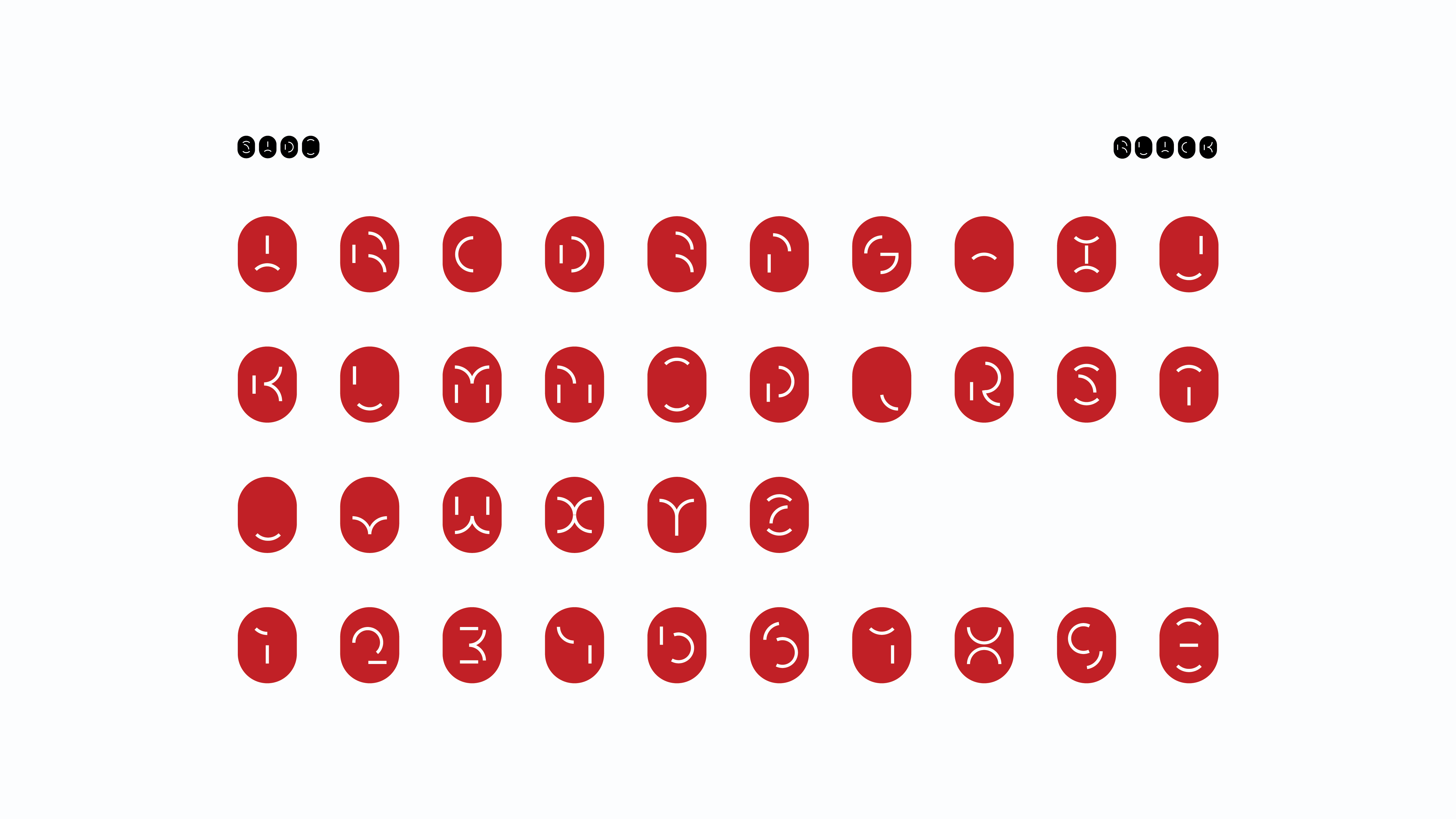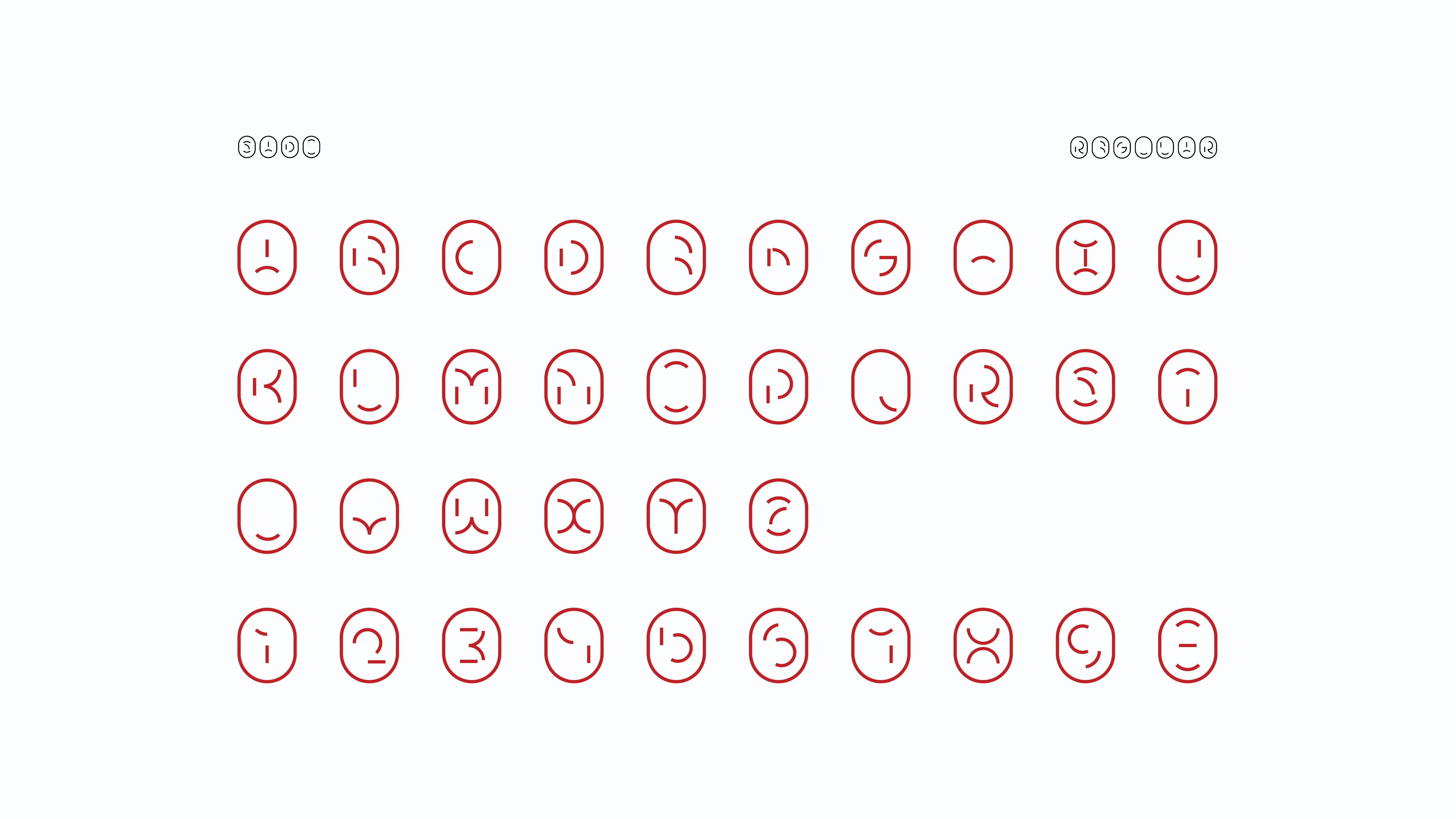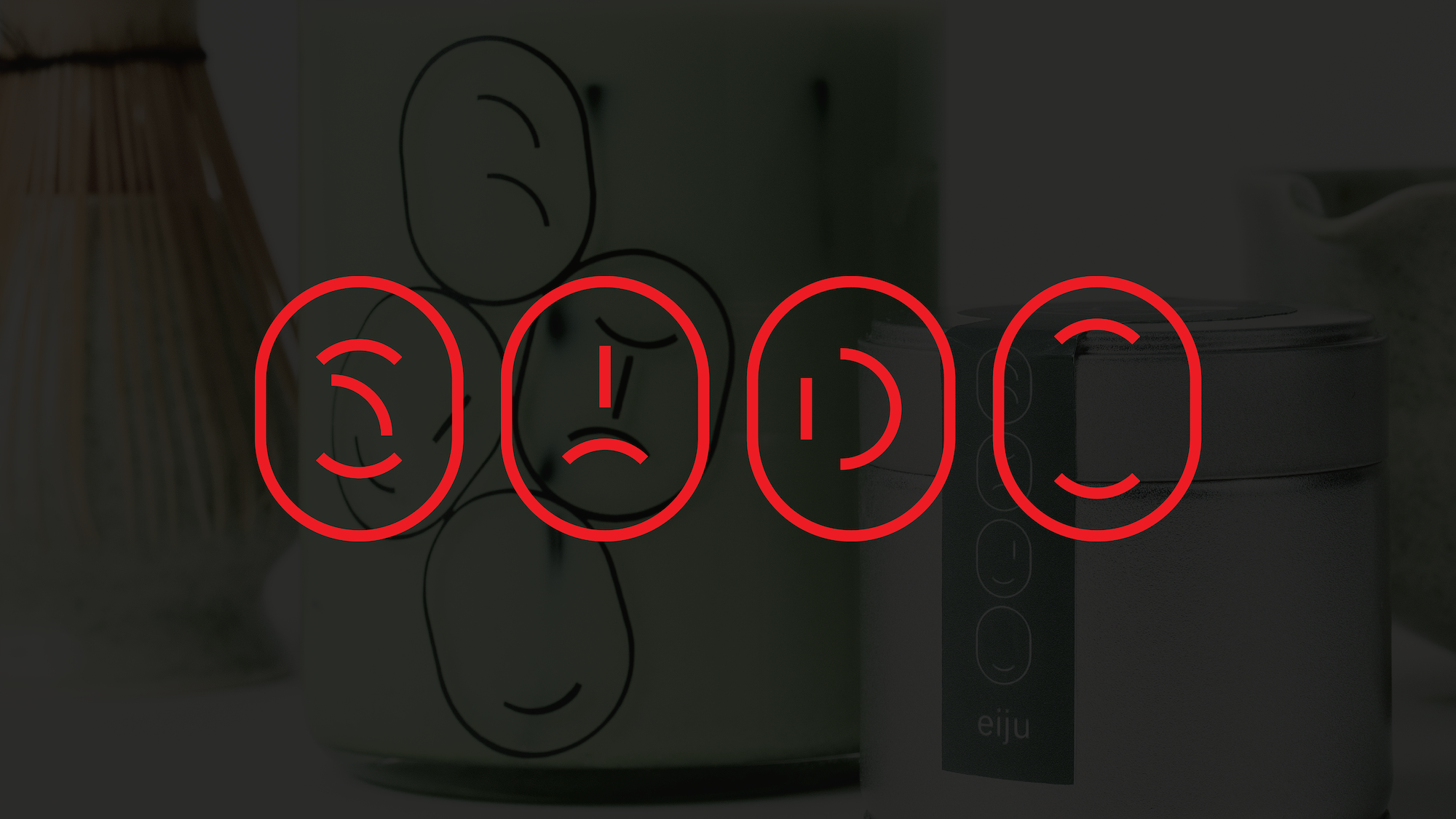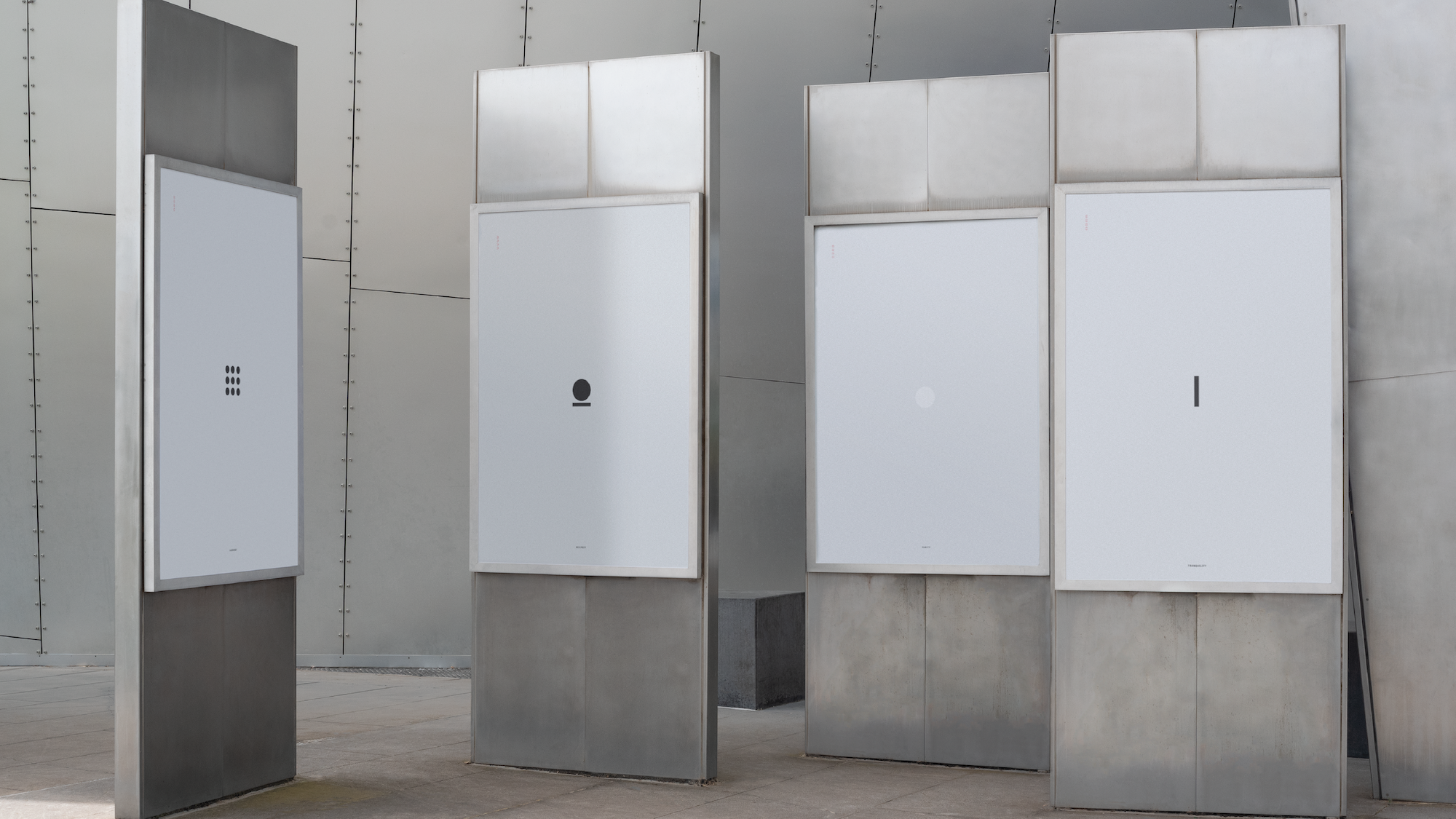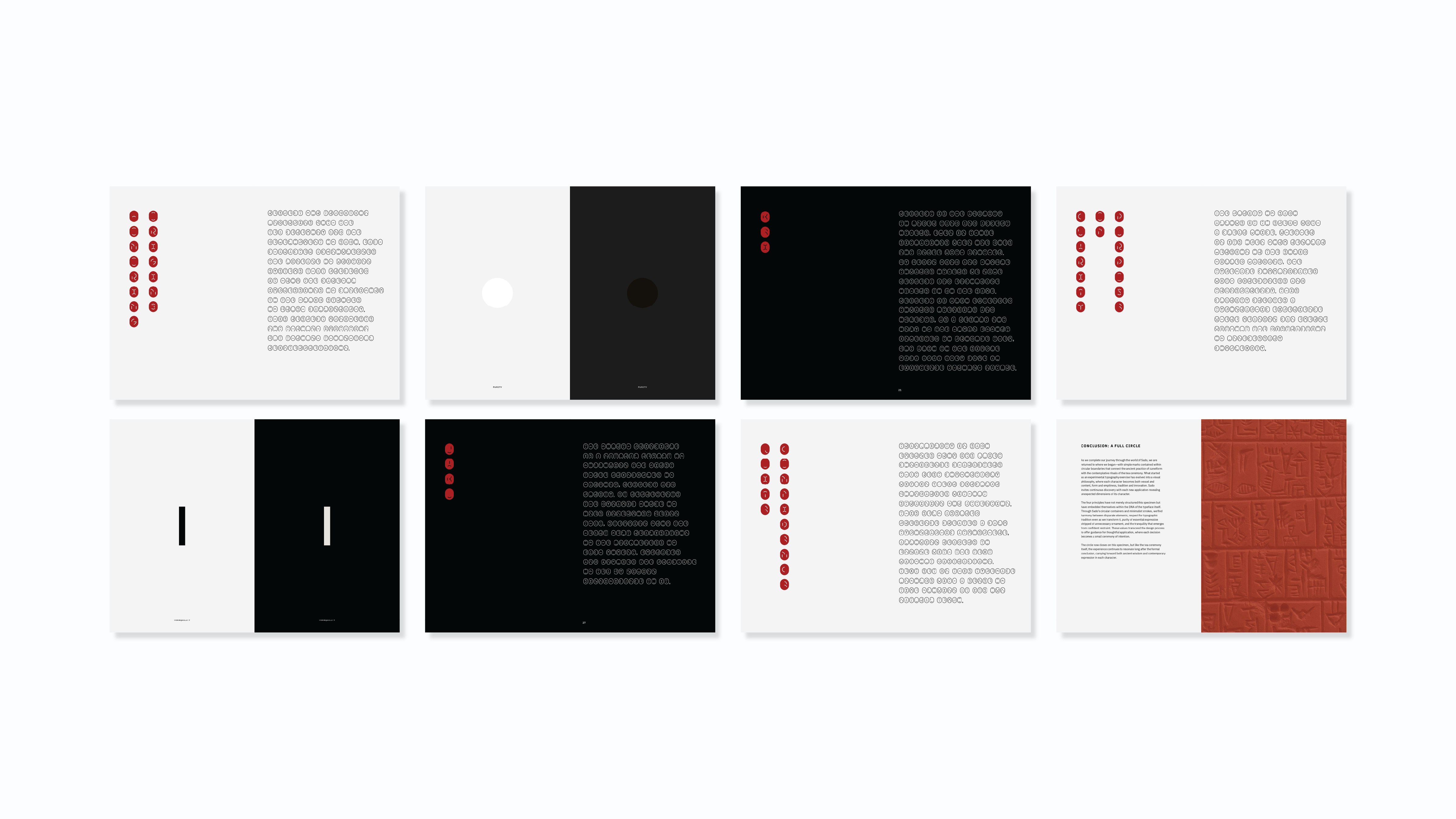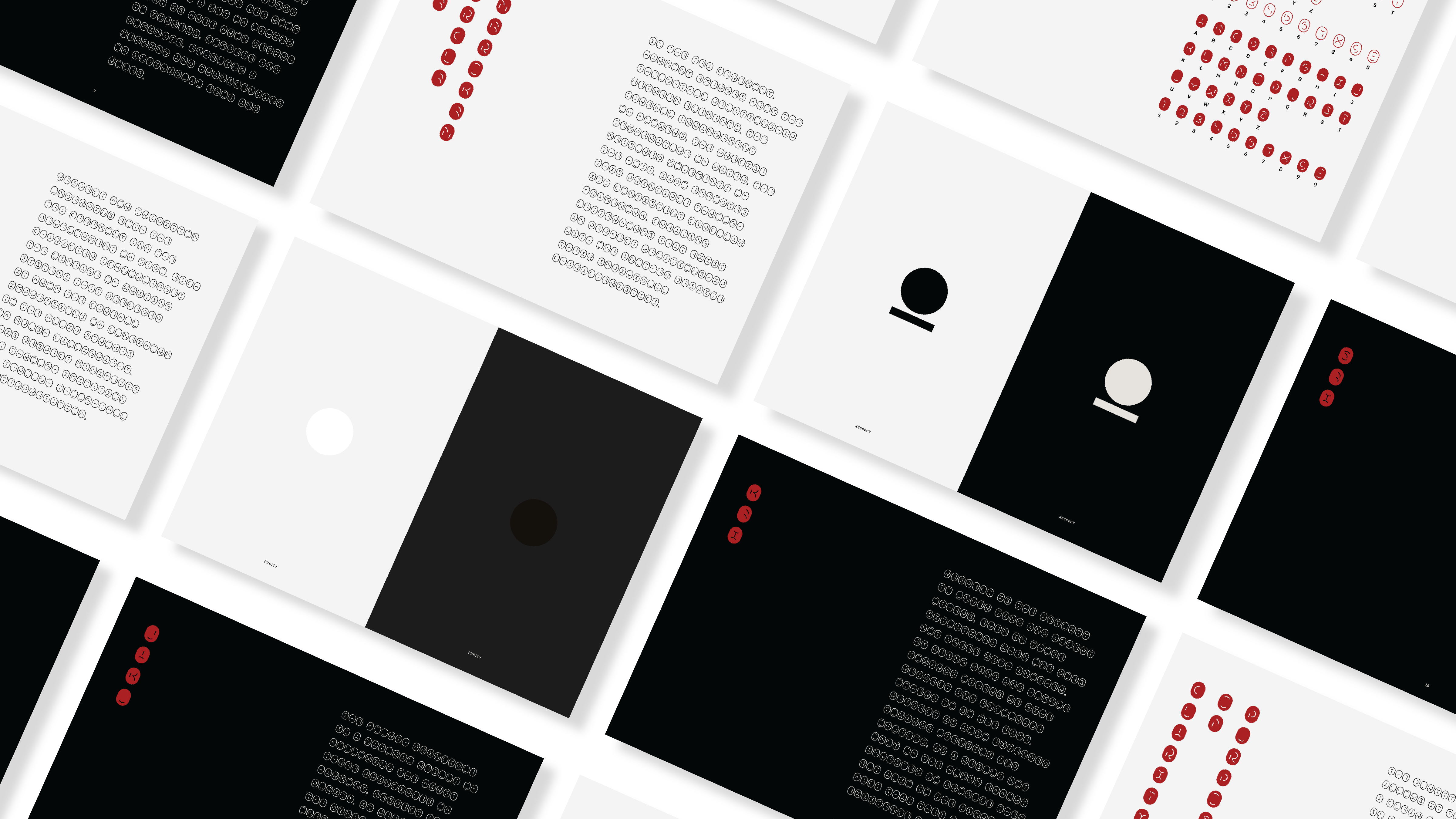
Sado Typeface
An experimental typeface inspired by ancient scripts and the meditative rituals of writing.
Process:
Drawn from the geometry of cuneiforms and the philosophy of tea, its forms are carved rather than written, inviting pause and contemplation. Developed in regular and black variations, the Sado Typeface explores the act of reading as ceremony and a modern homage to ancient systems of inscription.